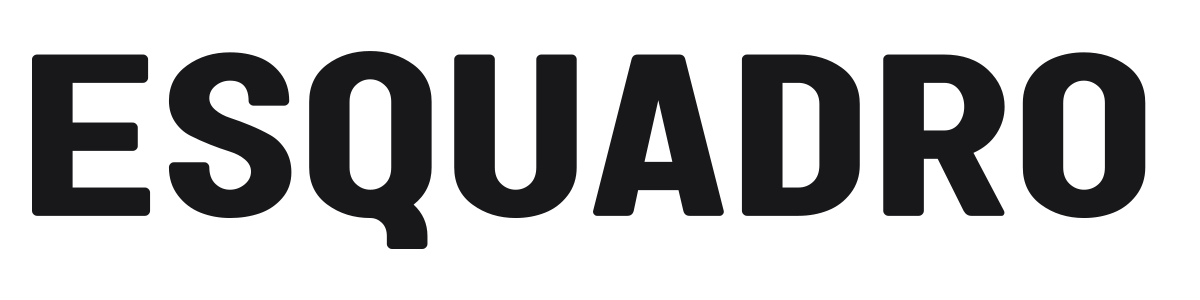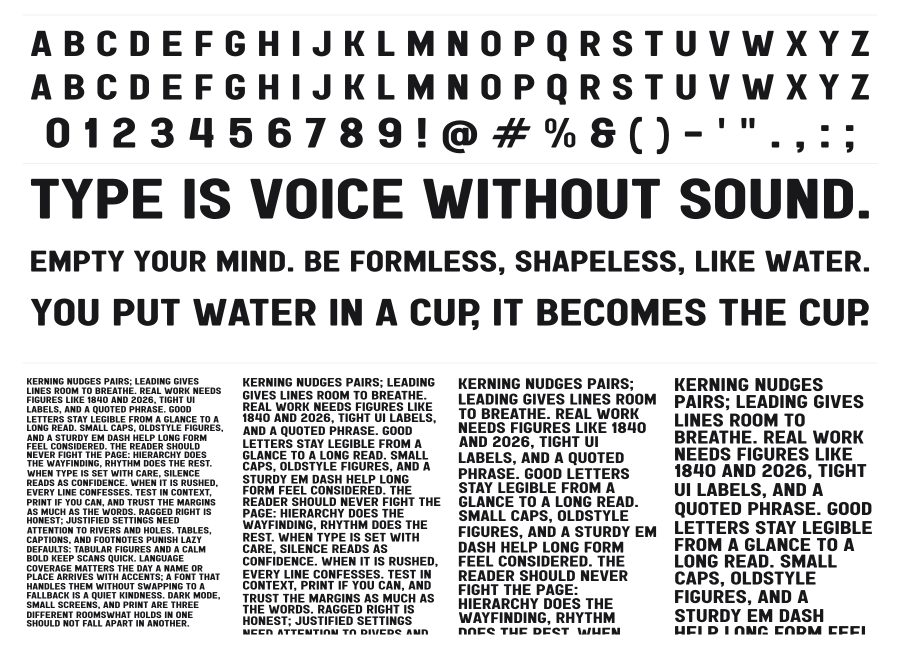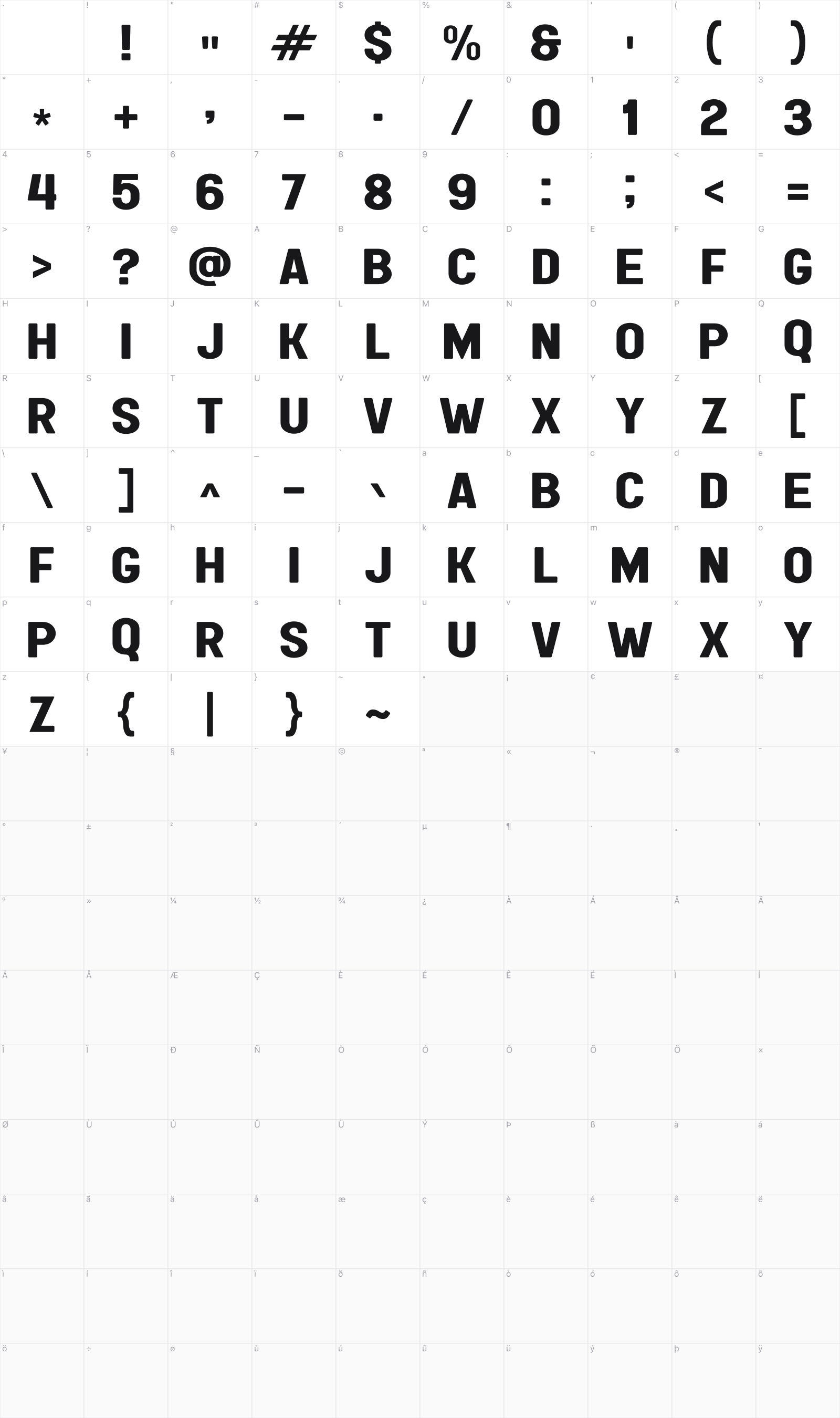
Esquadro
Esquadro is a bold condensed grotesque with dense, compact proportions and monoweight strokes. Its blunt terminals and sturdy construction give it a functional, industrial character without any decorative flourish. Solid for headlines, posters, and brand work that needs weight and clarity.